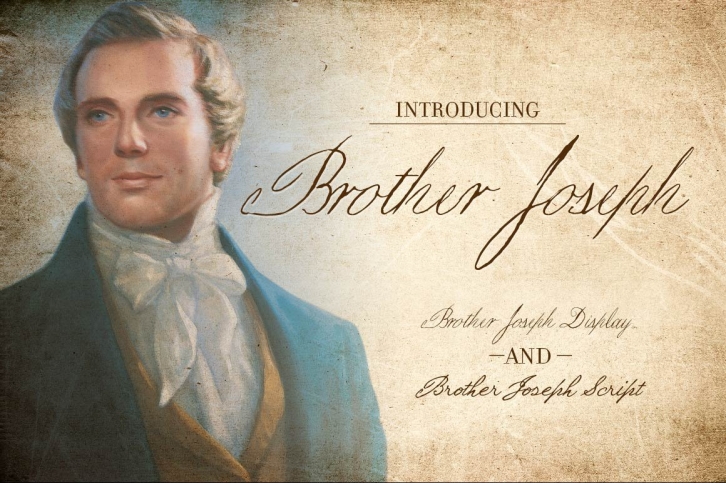
Recently I have enjoyed exploring 19th century calligraphy. Exploring beautiful books, journals, letters and documents written by a quill pen or brush. The soft and sturdy paper has a textured surface that interacts with every stroke. It takes you back to a time when you can smell the fresh ink, drying on parchment.
Introducing two unique typefaces that compliment each other perfectly. Brother Joseph Script and Display. Inspired from the penmanship of 19th century religious figure, Joseph Smith. The script reflects his every day correspondence while the display was used for emphasized text such as titles or chapter headings.
The typefaces include an extended western and eastern European character set for supporting a variety of languages. Also included are inferior and superior number sets for creating an infinite number of fraction combinations.
Painstaking effort has been made to provide common ligatures and discretionary combinations to provide consistent flow and a beautiful fit.